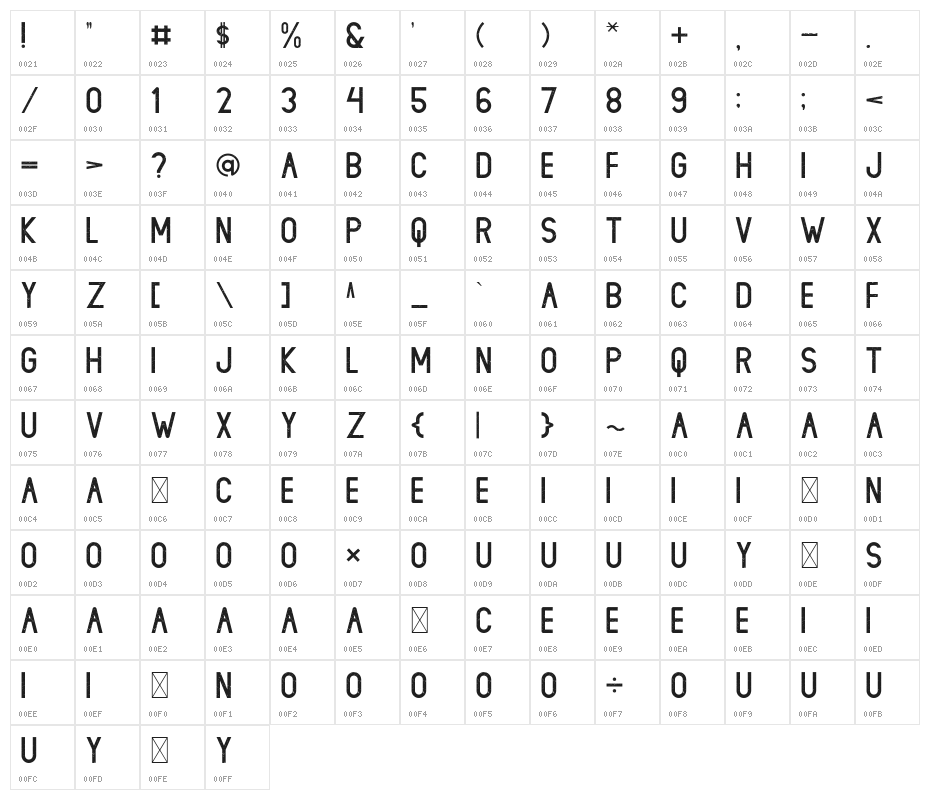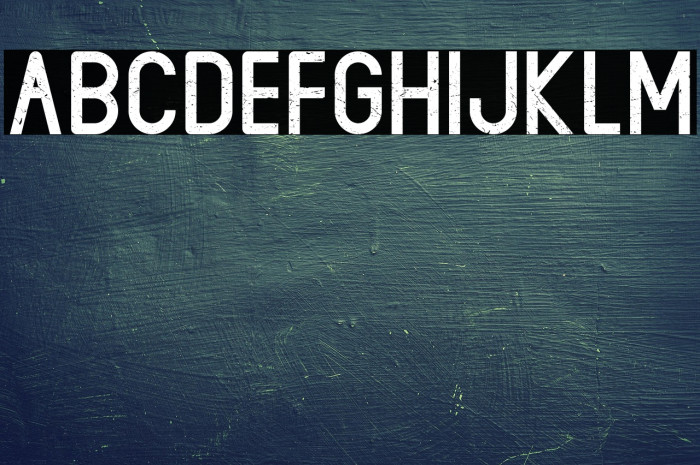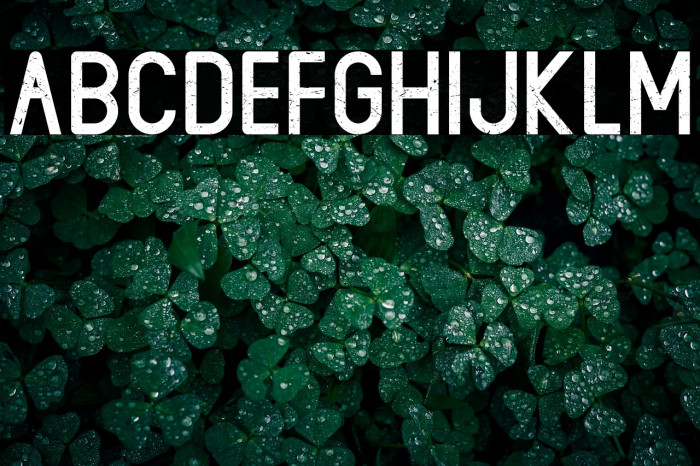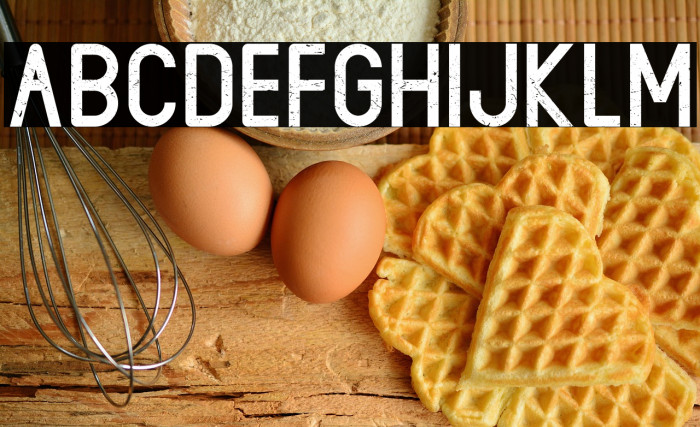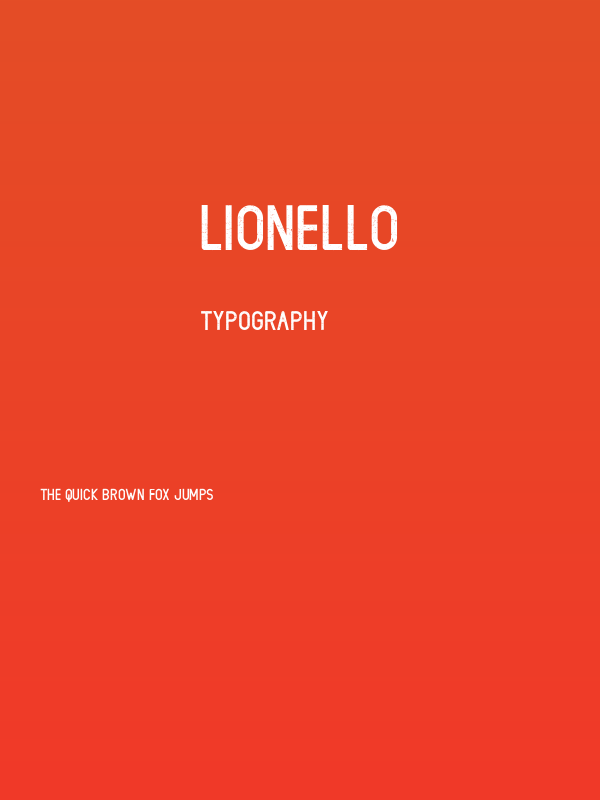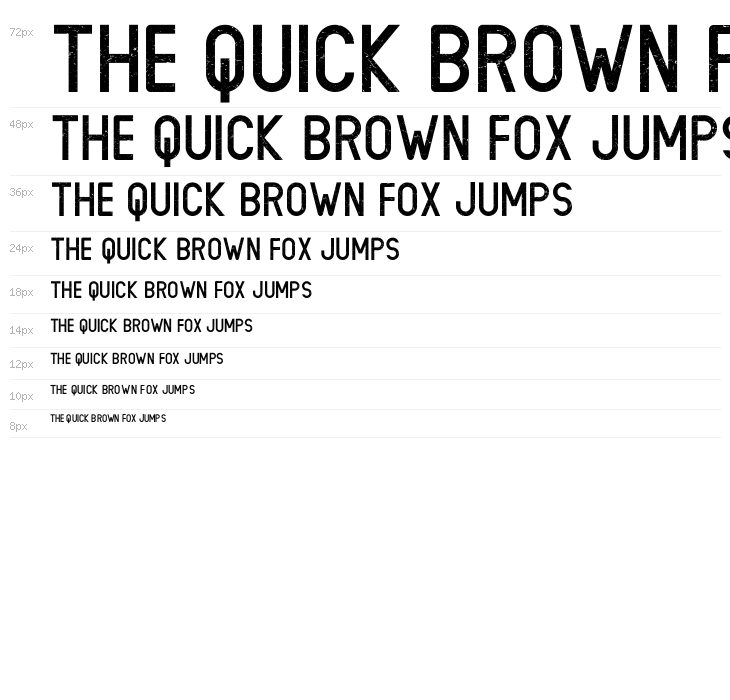
LIONELLO Font
LIONELLO Description
This font exhibits a bold, industrial style with a distressed texture, giving it a rugged and vintage appearance. The uppercase letters are strong and geometric, with consistent stroke widths that convey a sense of stability and strength. The numbers and special characters maintain this robust design, ensuring uniformity across all glyphs. The distressed effect adds character, making it suitable for projects that require a gritty, worn look. The font's clear legibility and bold presence make it ideal for impactful headlines or branding that demands attention.
| Proposed Projects | Ideal for branding, posters, headlines, and any design needing a rugged, vintage aesthetic. |